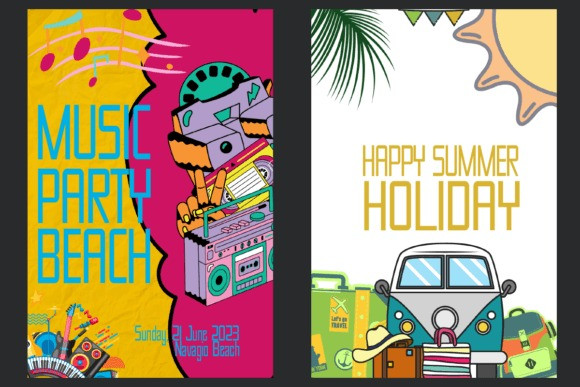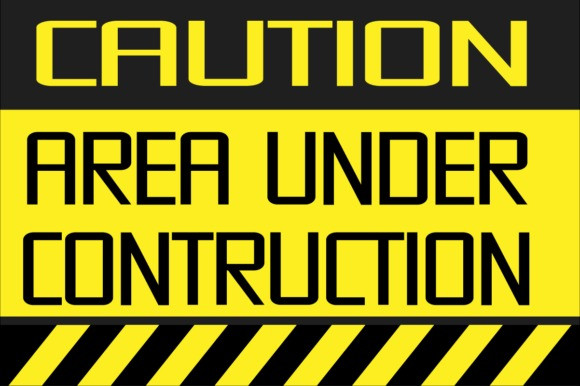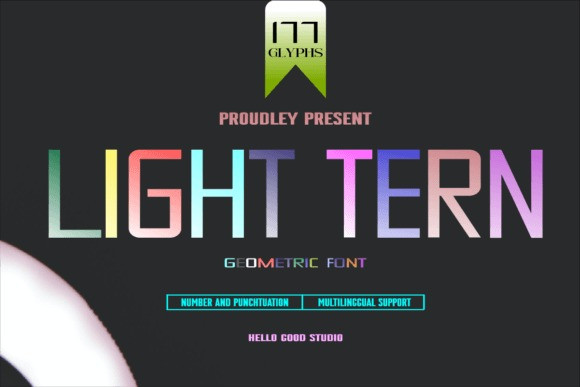
Light Tern Font
Light Tern Font is a modern geometric display font inspired by the cleanliness of typography. Add this unique and interesting typeface to your creative ideas and you will love the results! Light Tern is a geometric font guaranteed to grab your attention. It has an incredibly unique design that can be perfect for a range of creative branding and packaging projects. The lettering of the font is crafted to match playful and casual designs.